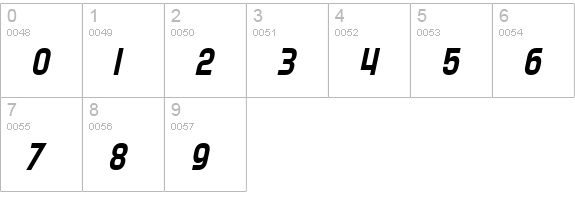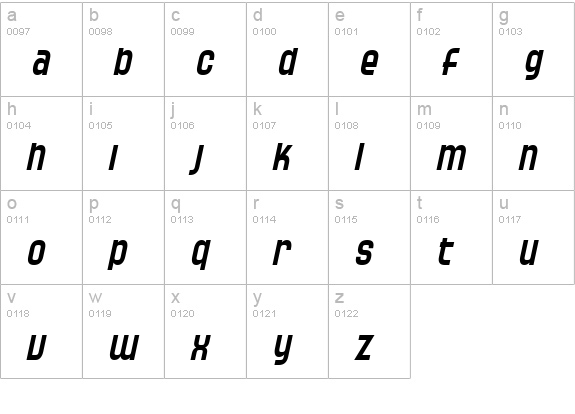
SF Speedwaystar Condensed Oblique is a distinctive, condensed-width, italic variant in the SF typeface family \xE2\x80\x94 well suited to design and typography projects.
SF Speedwaystar Condensed Oblique font is a magnificent display typeface that exudes a sense of speed, power, and energy. Its condensed structure gives it a sleek and streamlined appearance, making it perfect for designs that require a touch of modernity and dynamism. The unique oblique slant of this font adds an extra level of excitement and movement, making it an ideal choice for sports-related projects, racing events, automotive designs, and anything that needs a hint of adrenaline. With its sharp and angular letterforms, SF Speedwaystar Condensed Oblique font captures attention effortlessly, ensuring that your message is conveyed with impact and intensity. Its bold and assertive style makes it stand out from the crowd, making it an excellent choice for headlines, titles, and logos. The versatility of SF Speedwaystar Condensed Oblique font extends beyond its aesthetic appeal. It is designed to be highly legible, even at smaller sizes, ensuring that your text remains clear and readable across various mediums. One of the best aspects of SF Speedwaystar Condensed Oblique font is that it is freely available to download at FontsMarket.com. This means that you can easily access and incorporate this stunning typeface into your designs without any hassle. Whether you are a professional designer or a hobbyist, having access to high-quality fonts for free is an invaluable asset. So why settle for ordinary when you can elevate your designs with the captivating SF Speedwaystar Condensed Oblique font? Download it for free today at FontsMarket.com and unleash the power of speed and style in your projects.